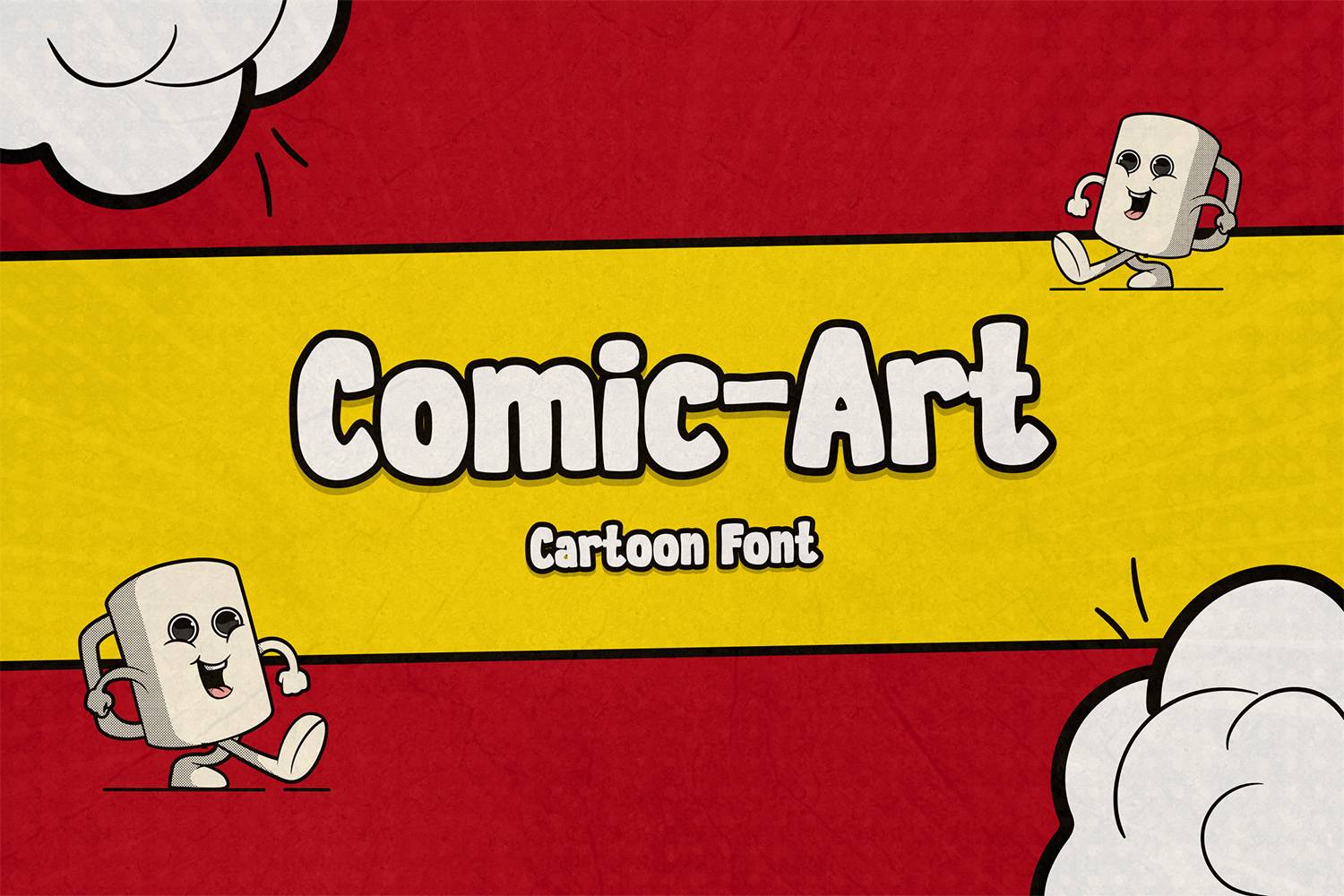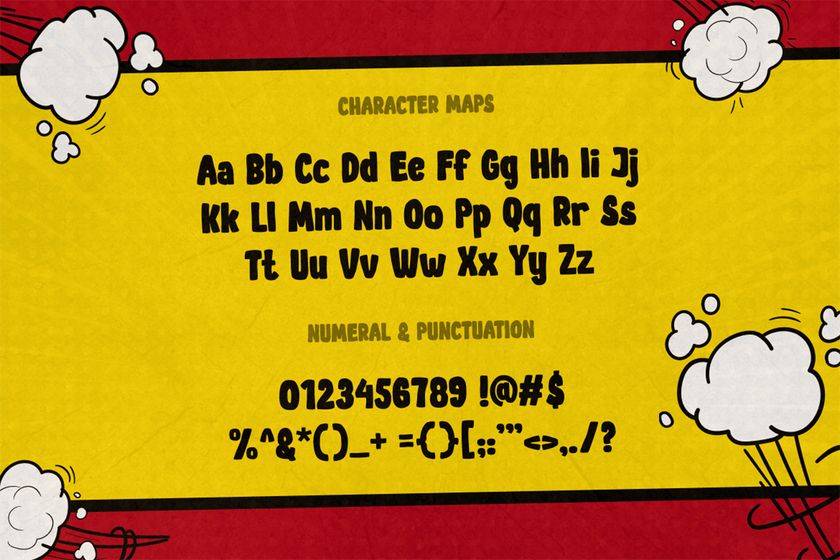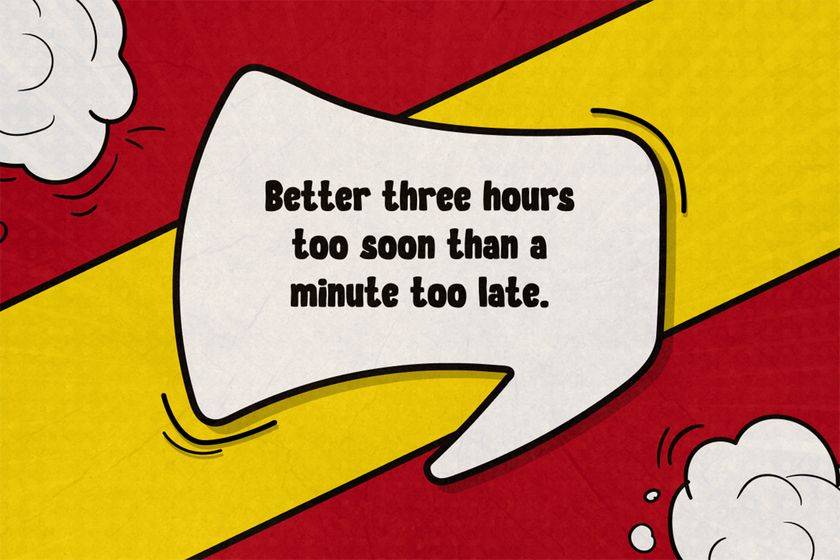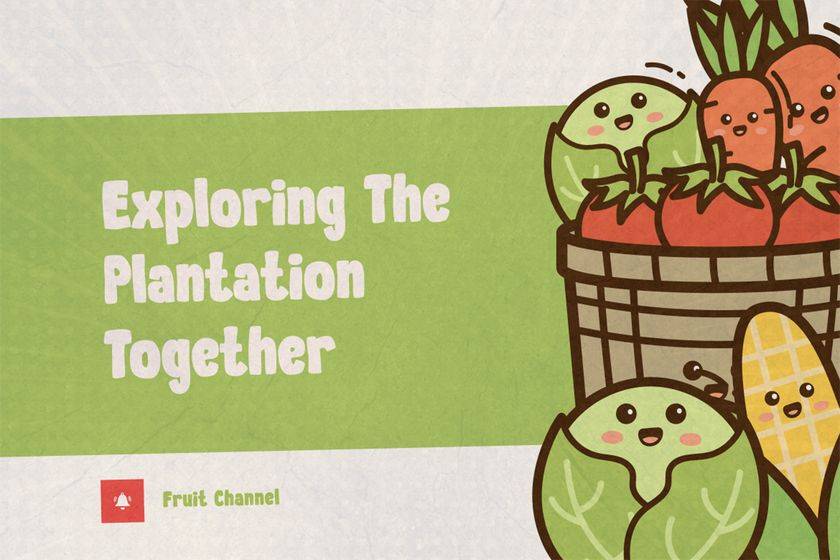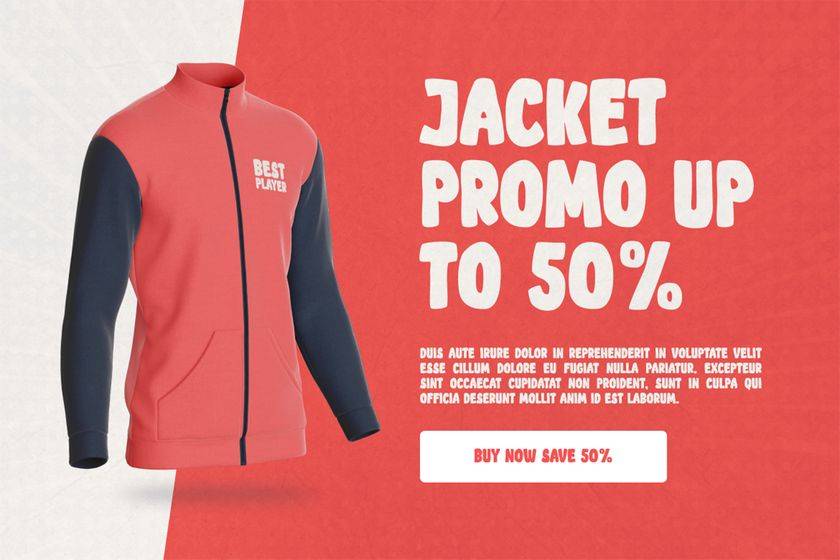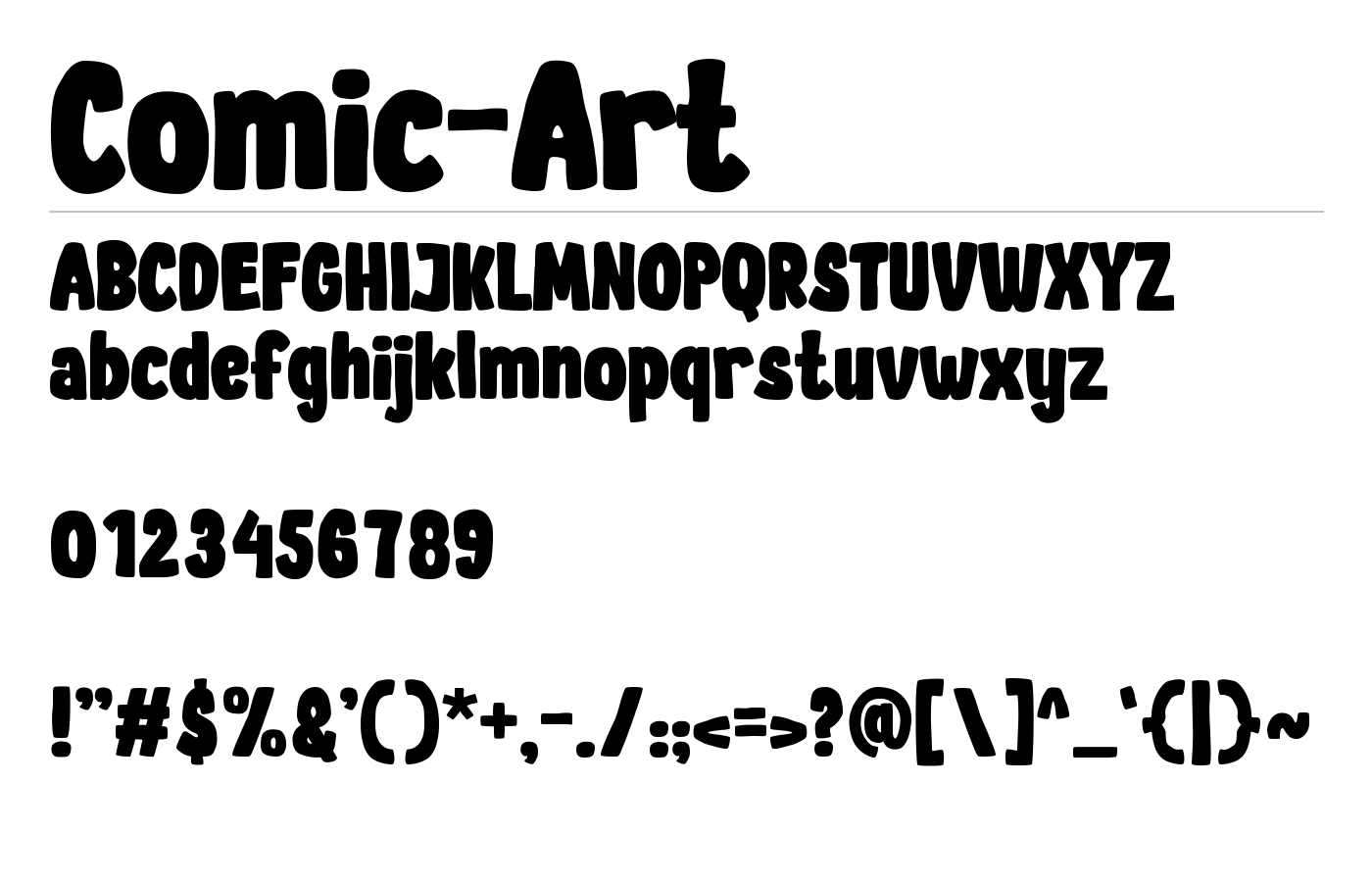
Comic Art is a bold, playful sans serif font with a slightly condensed width and strong, rounded shapes that convey a friendly and approachable personality. Its thick strokes and quirky letterforms make it ideal for fun, casual designs such as comics, posters, and children’s materials where a lively and informal tone is desired. This font works best in headlines and display uses, adding a vibrant touch to creative branding and editorial projects.
Comic Art Font